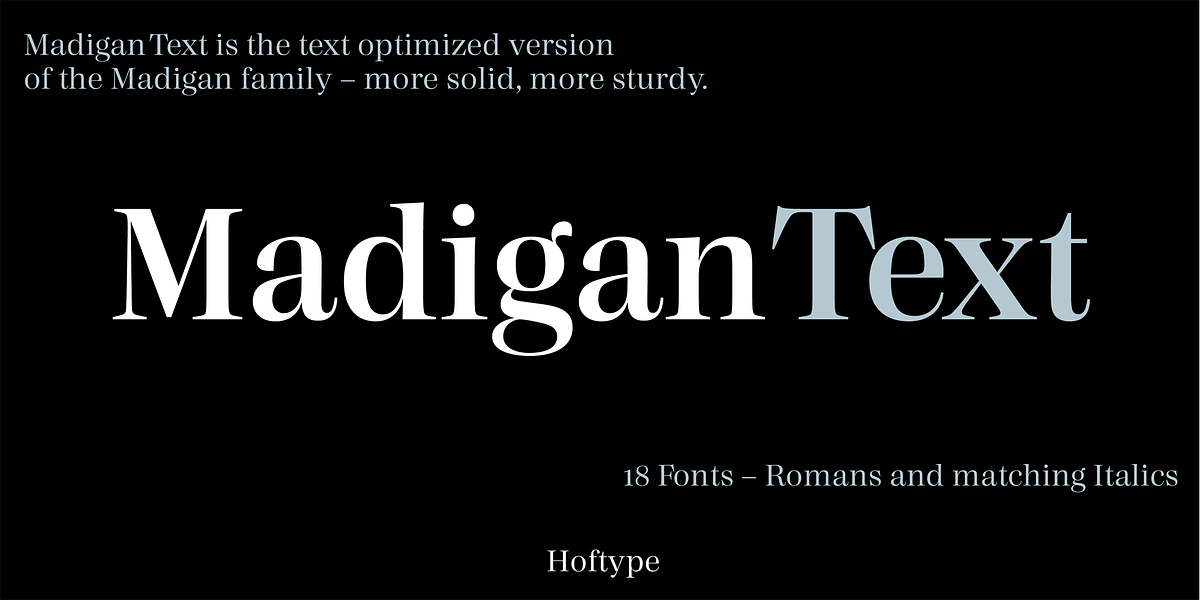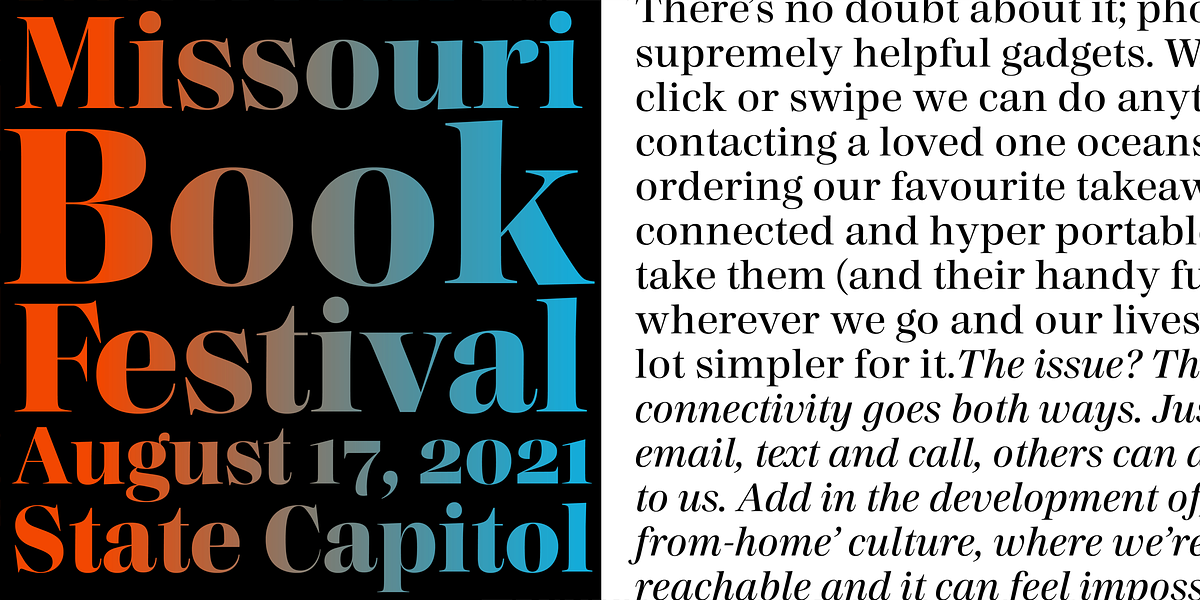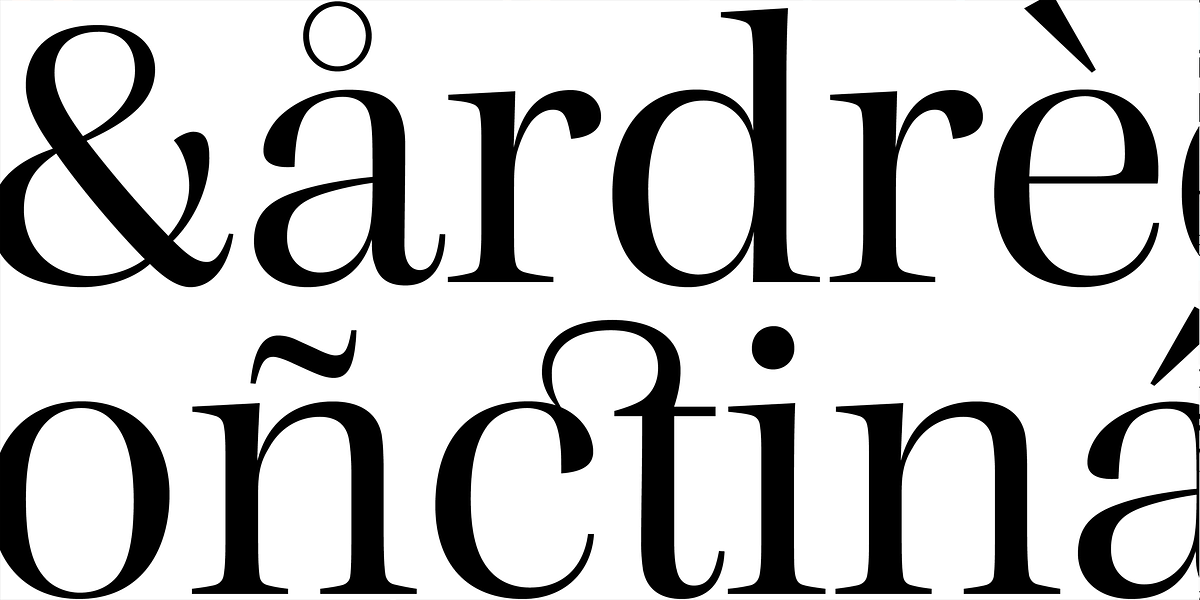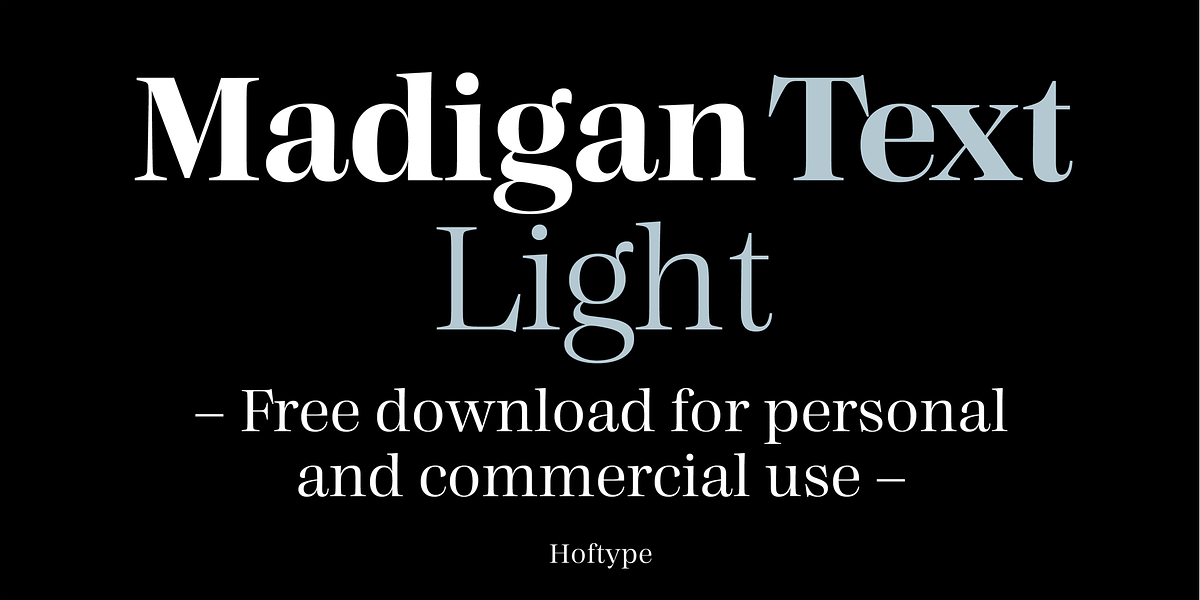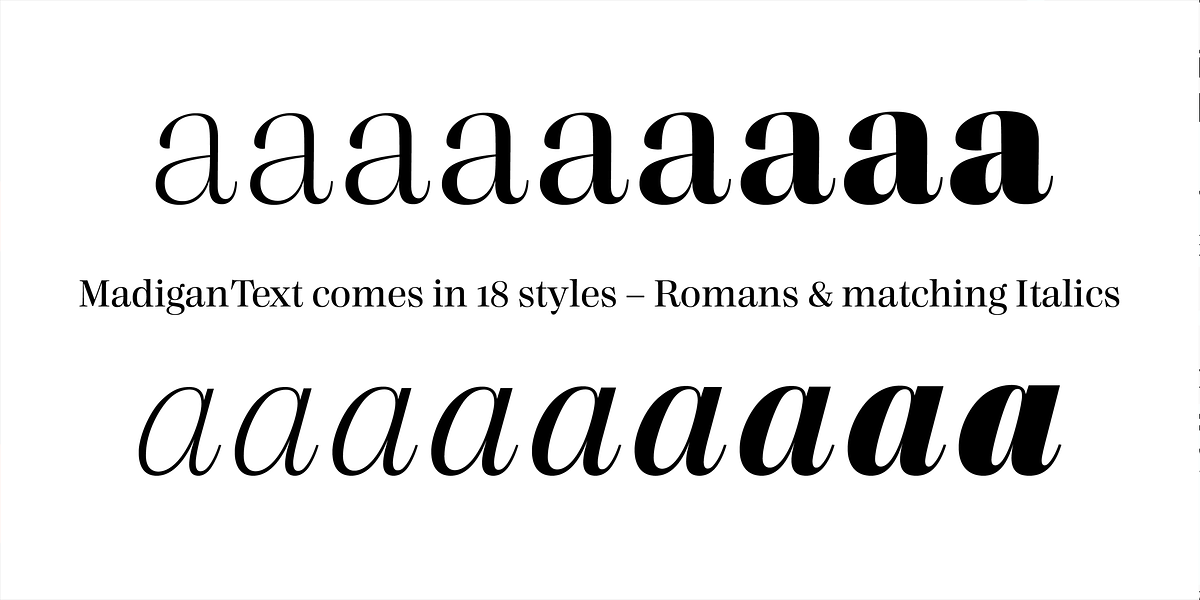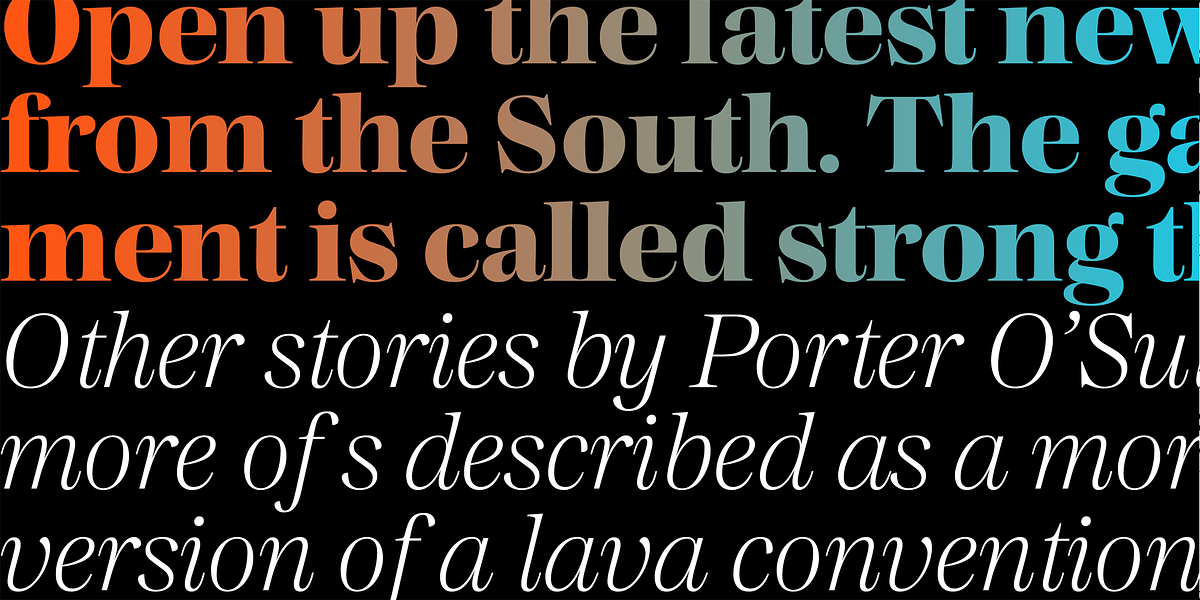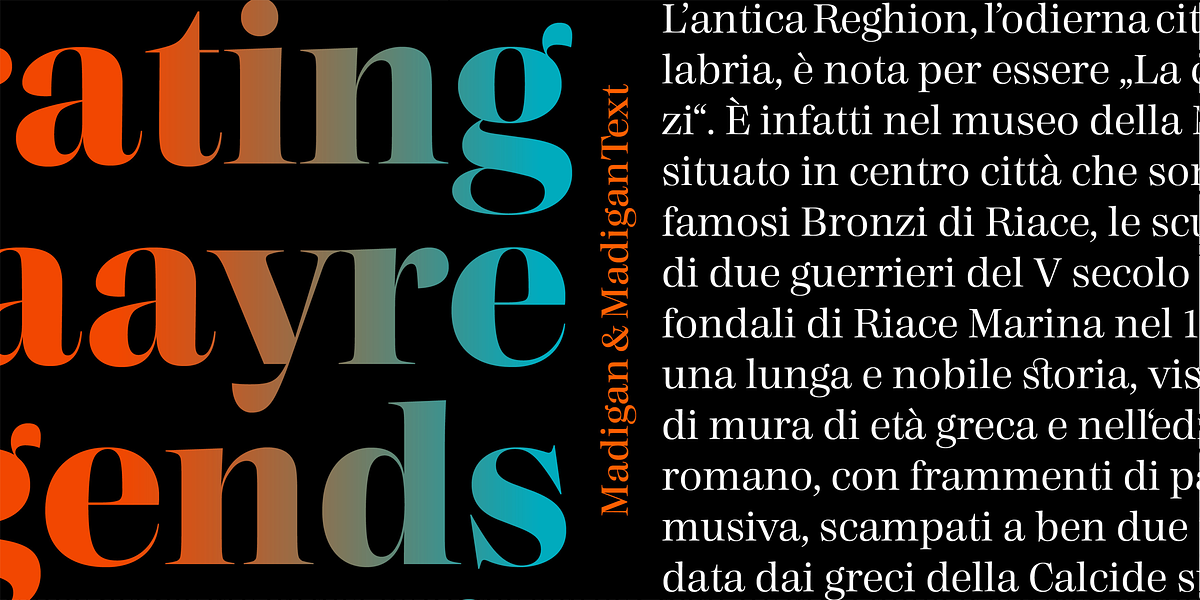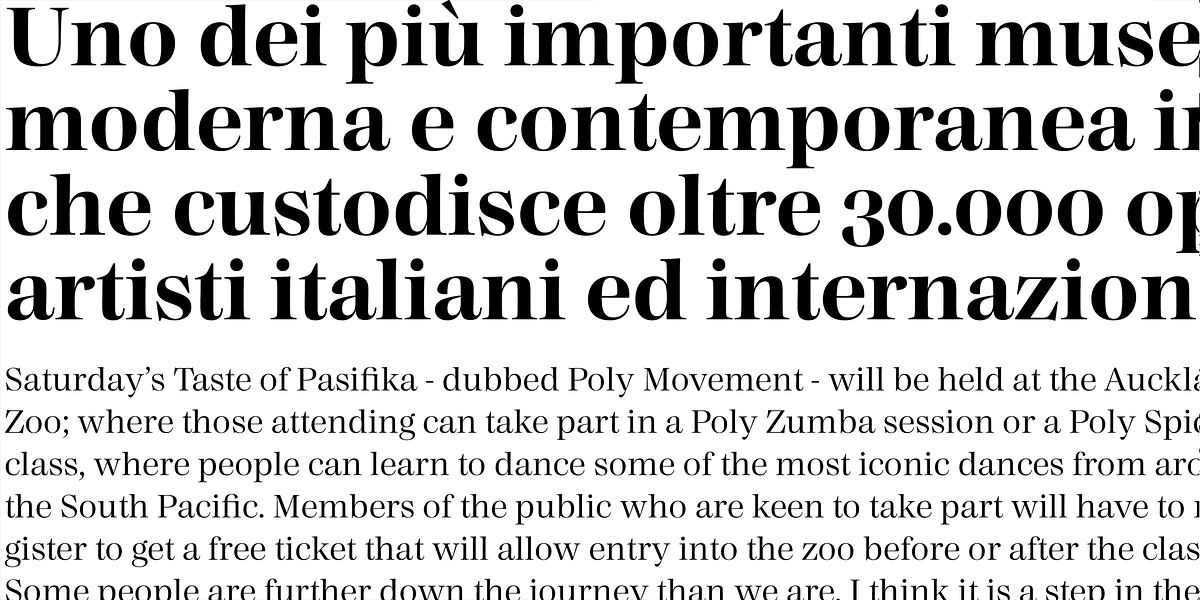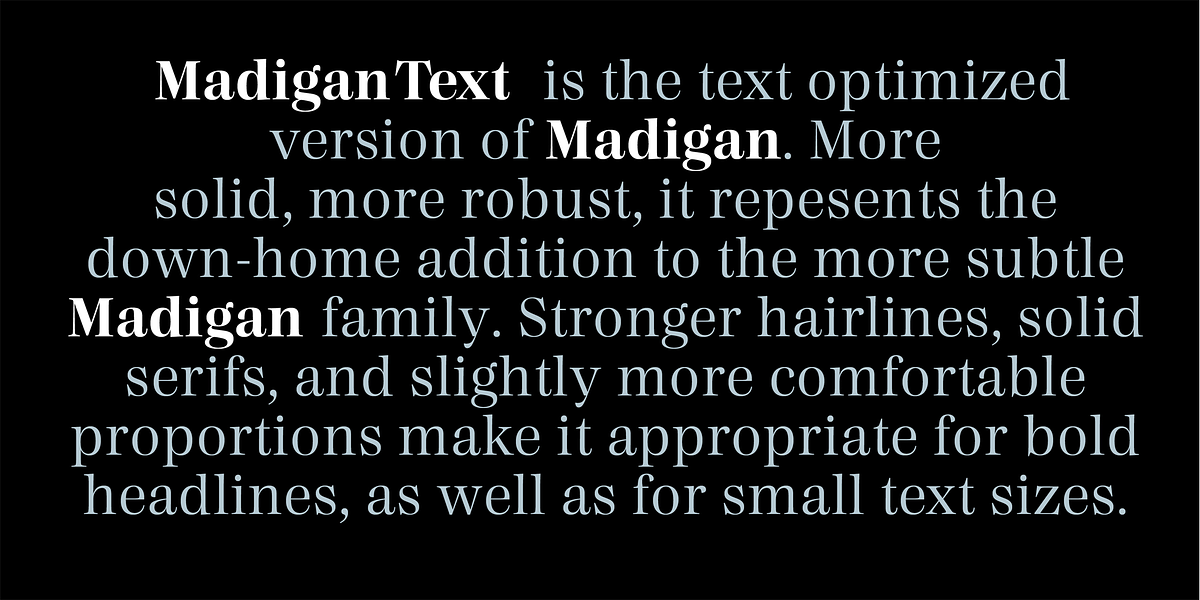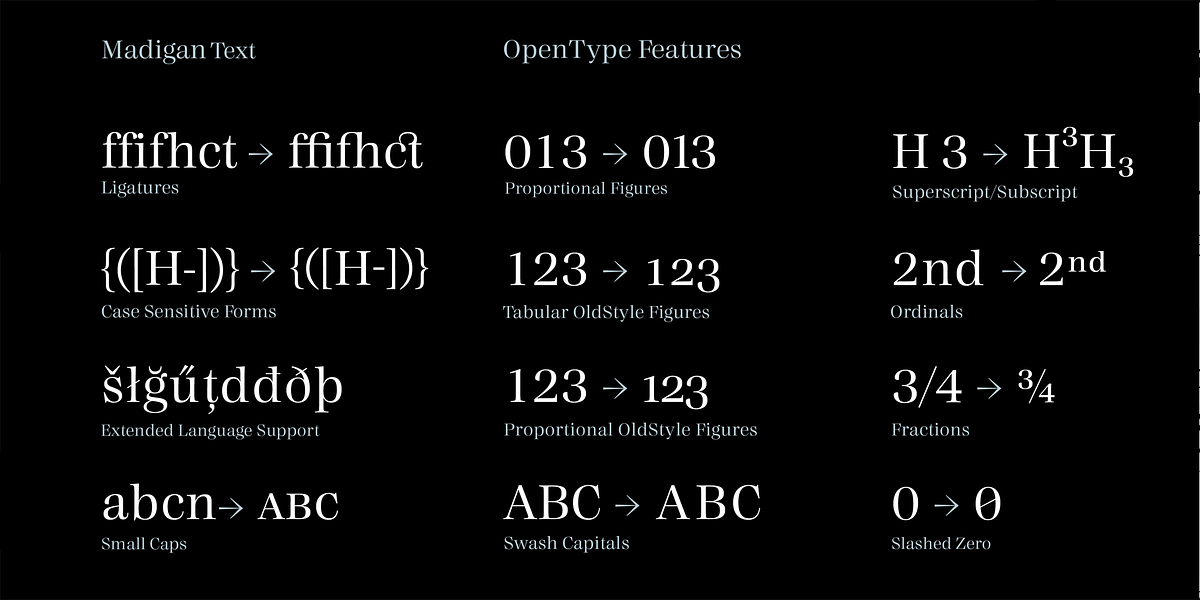
Madigan Text
Madigan Text is a serif font designed for optimal readability in both large and small text sizes. It features strong hairlines and solid serifs, giving it a robust and stable appearance. The slightly wider proportions contribute to its legibility, making it suitable for a range of applications from headlines to paragraph text.